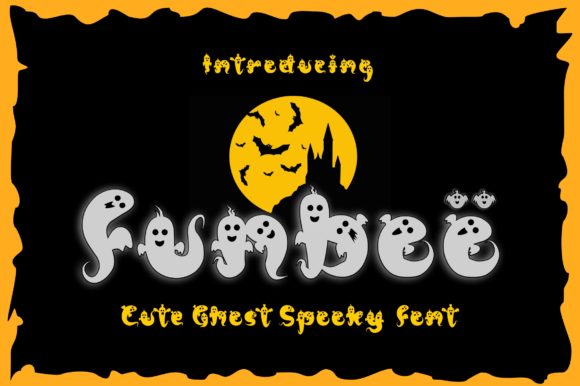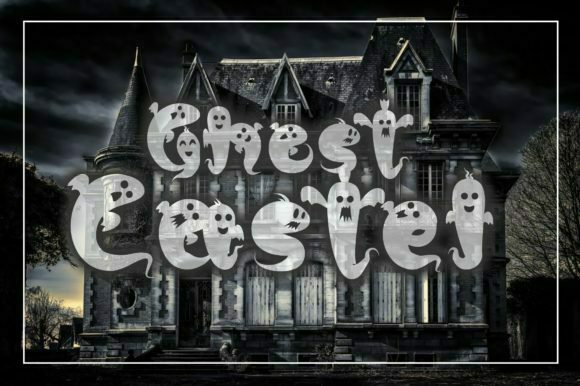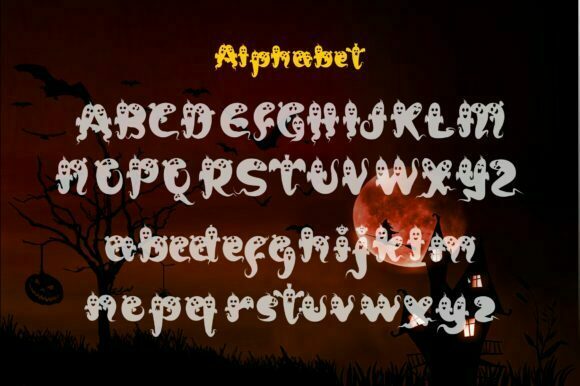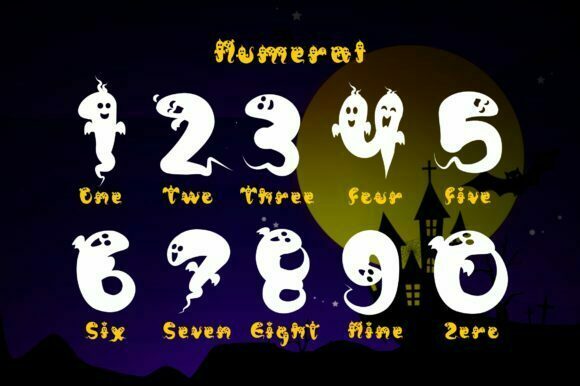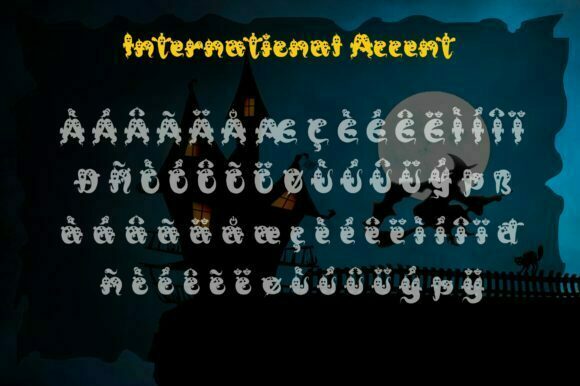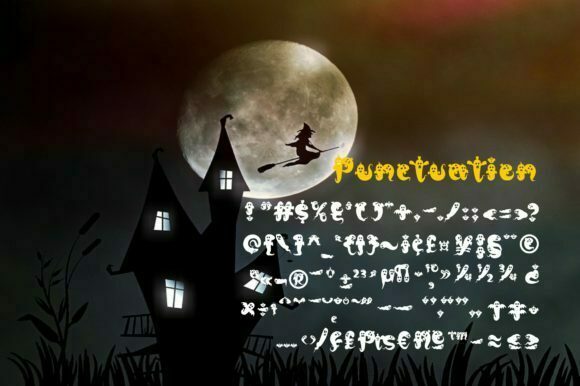
Funboo Font
About Funboo Font
Funboo is an incredibly unique and interesting dingbats font. A little bit quirky, this font will make each of your creative Halloween themed ideas stand out!